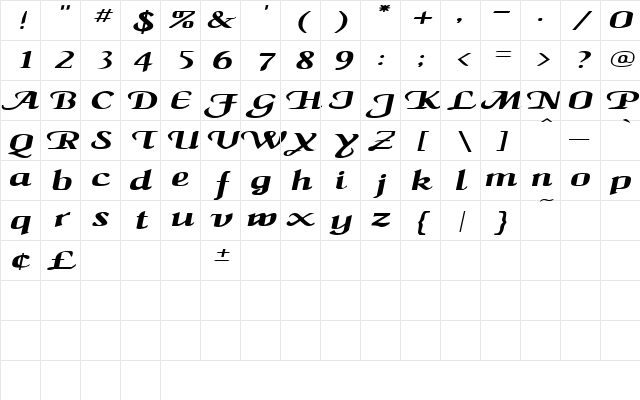
MaidenWordExtended Italic
MaidenWordExtended Family
Design Context for MaidenWordExtended
MaidenWordExtended is a composed and adaptable typeface that performs quietly and consistently across a wide range of design contexts. The slanted form adds forward momentum and visual energy.
Pro Tip: Use MaidenWordExtended for emphasis, pull quotes, and subheadings where its slanted energy can add rhythm to the layout.